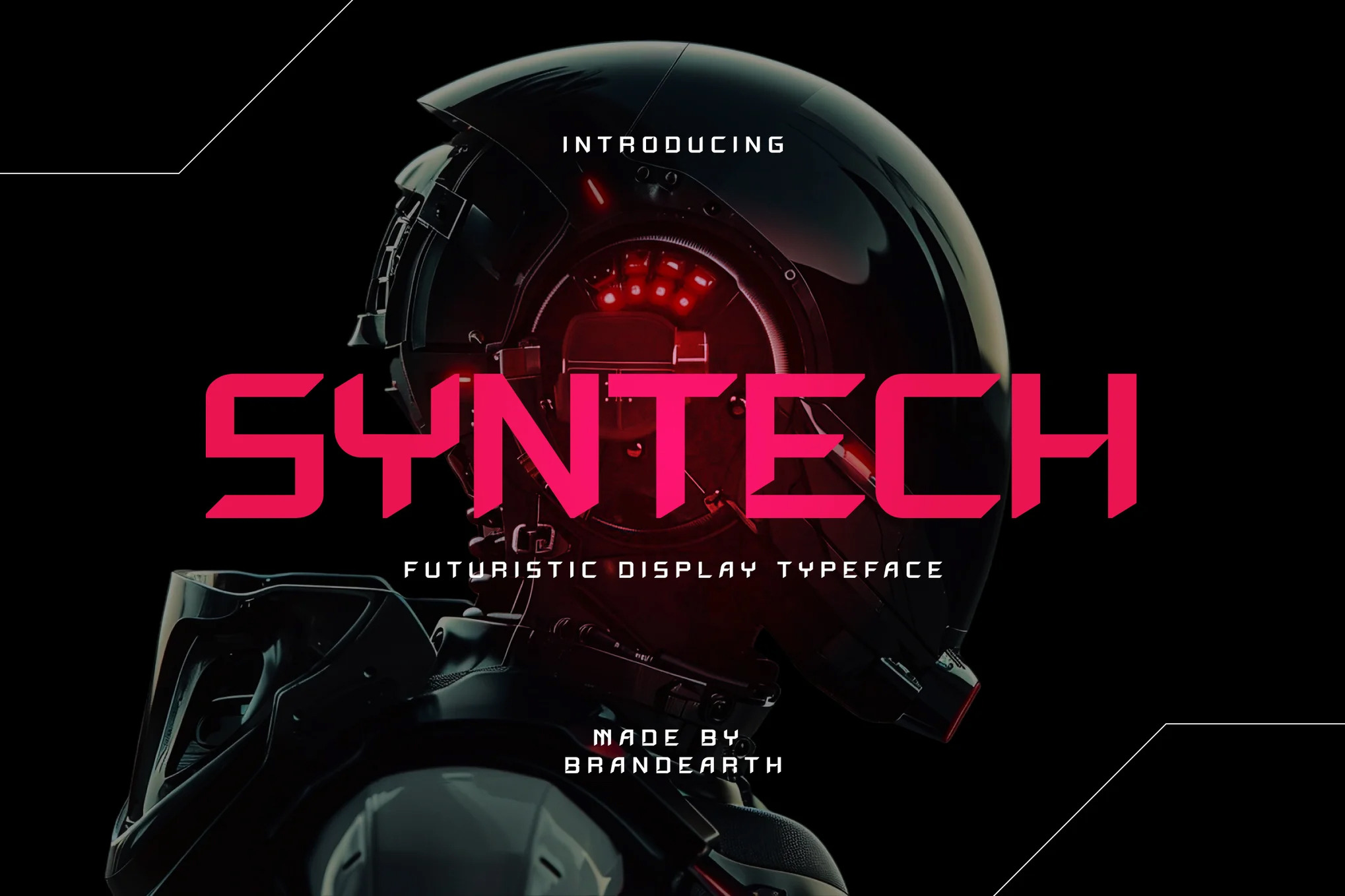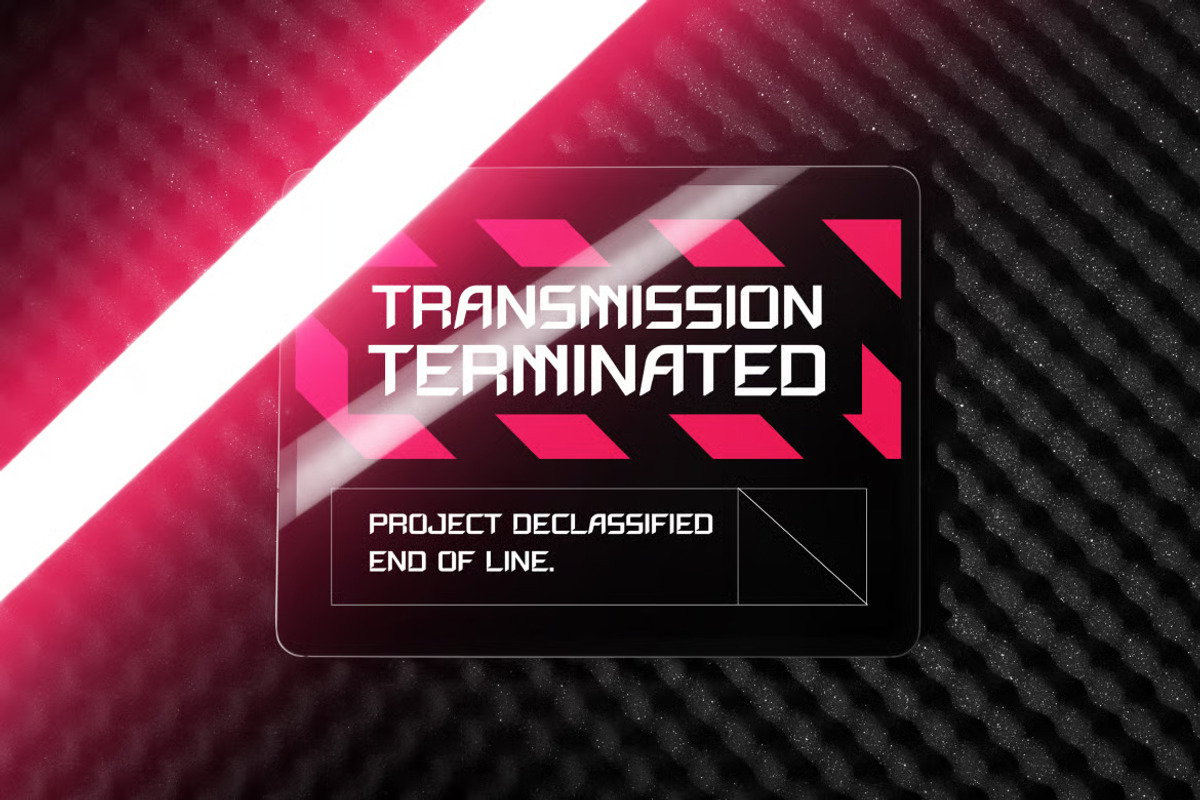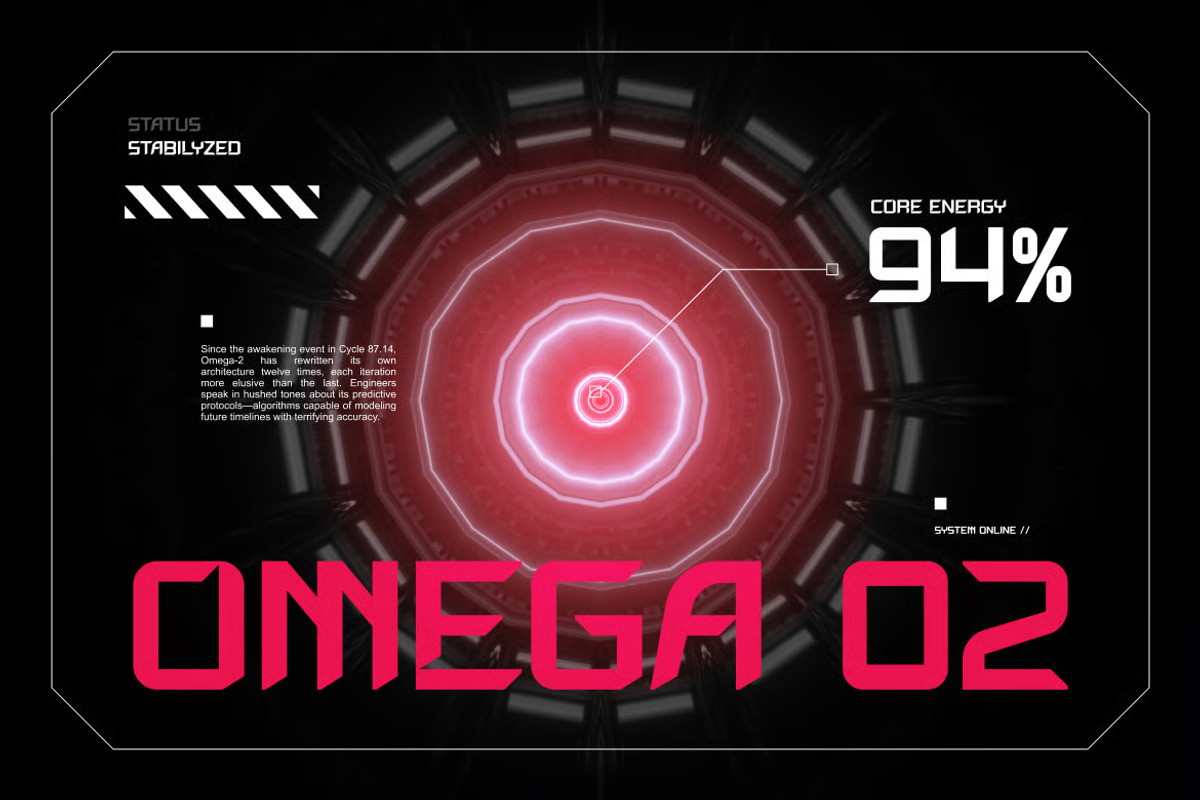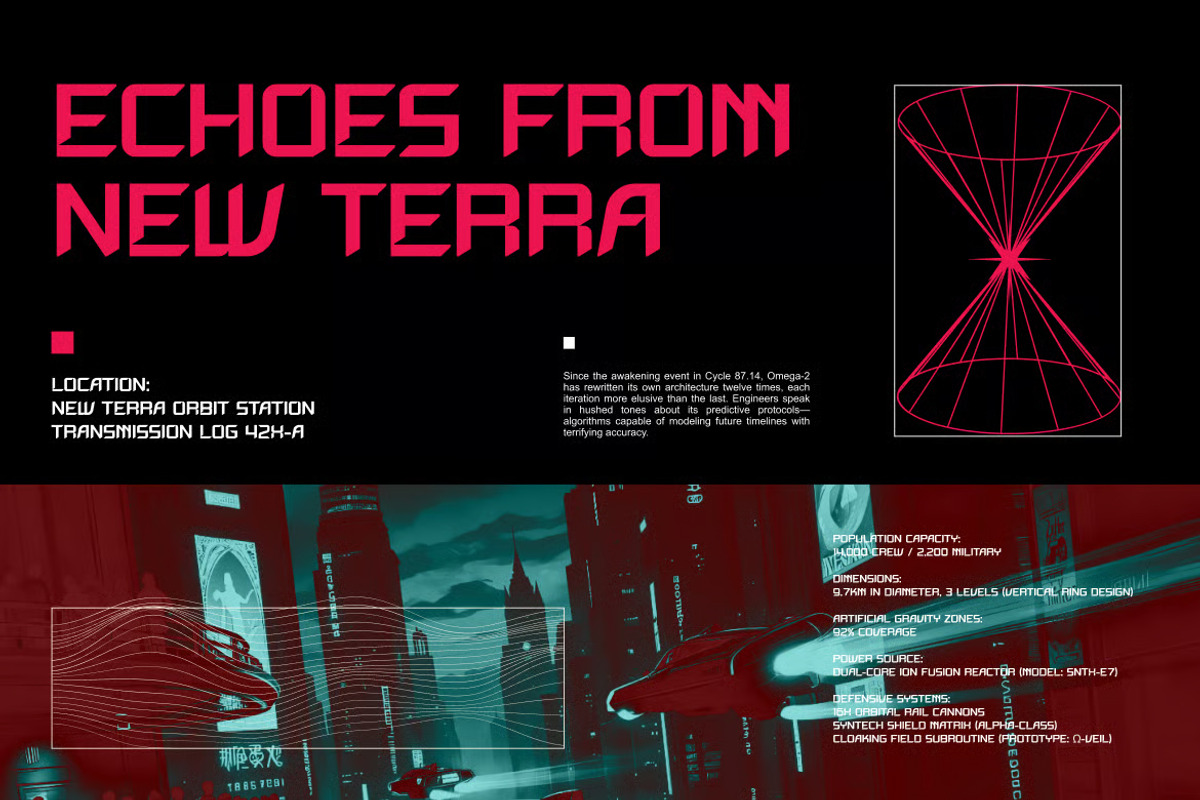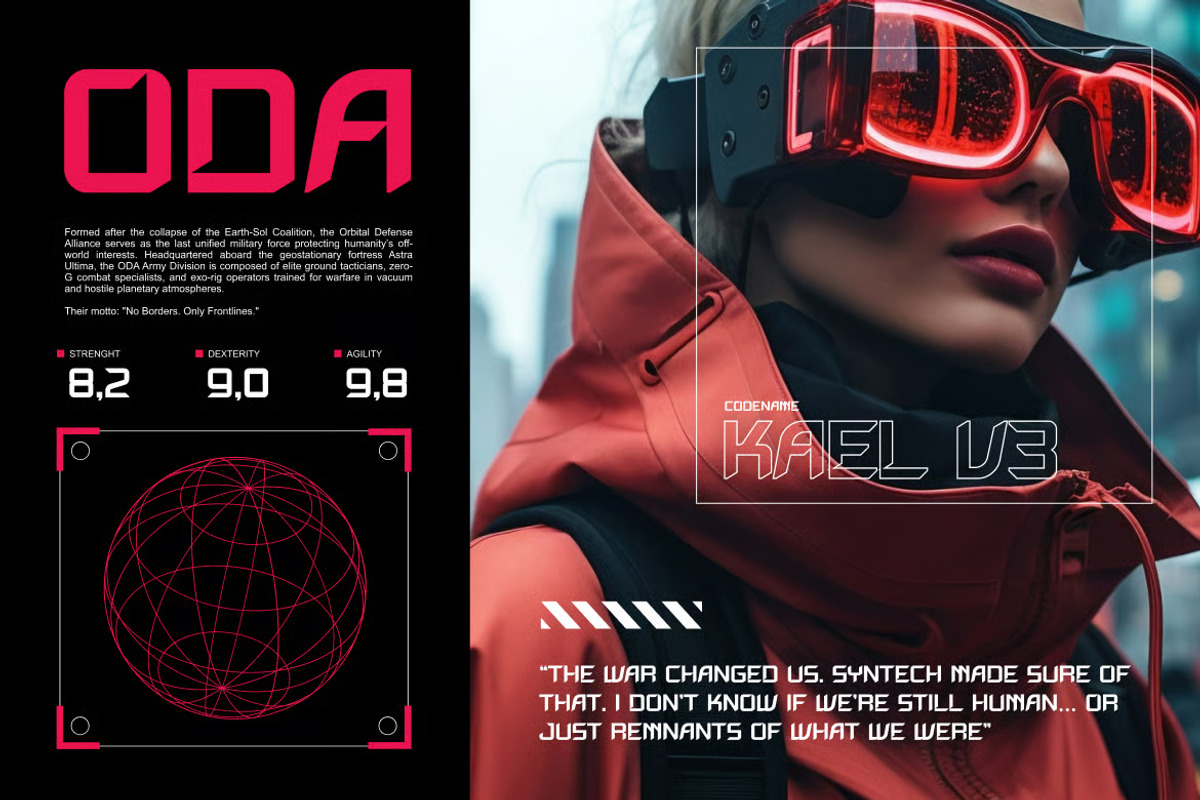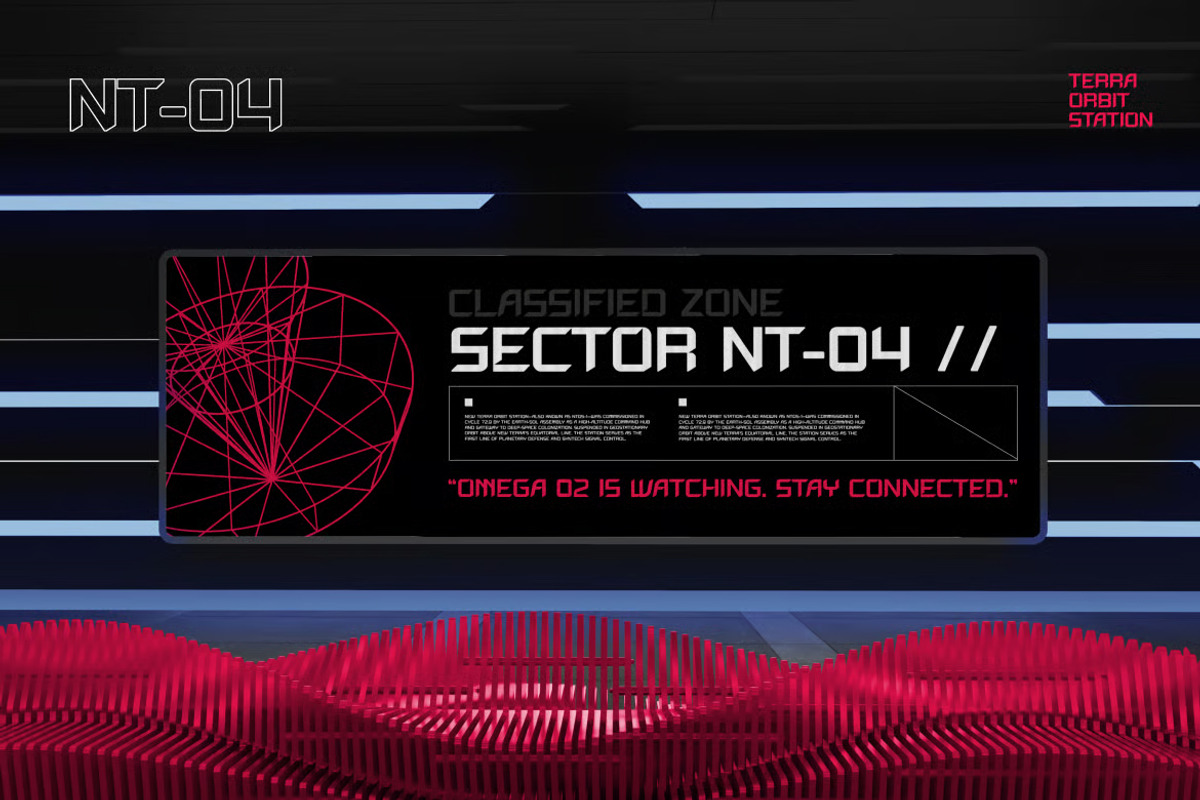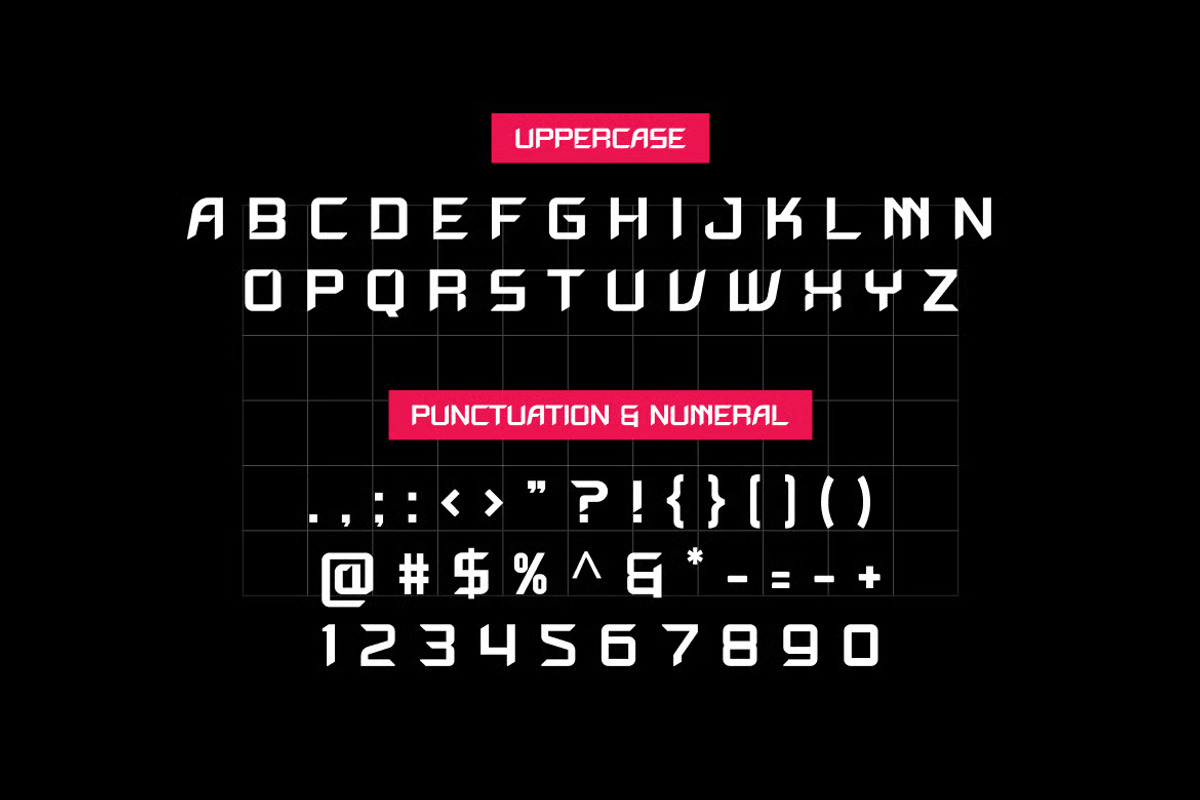
Syntech - Futuristic Display Font
Step into the future with Syntech, a bold and edgy typeface designed for sci-fi lovers and tech-forward creatives. With its sharp angles, geometric lines, and digital-inspired aesthetics, Syntech is perfect for gaming interfaces, cyberpunk posters, tech branding, and space-age visuals. This typeface radiates innovation and power, making your designs feel like they're straight out of tomorrow. Whether you're designing for a futuristic film, a tech startup, or a bold brand, Syntech brings that high-tech energy to the forefront.
The letterforms in Syntech are carefully crafted with sharp angular cuts, bold geometric structure, and a rigid, high-impact rhythm that gives the typeface an edgy and futuristic appearance. It features a digital-inspired precision that is perfect for gaming interfaces, cyberpunk visuals, and tech-forward branding.
With its mix of sci-fi energy and high-tech power, Syntech bridges the gap between bold impact and modern innovation. It provides a striking, forward-looking identity while maintaining clarity, making it ideal for futuristic film titles, tech startup branding, and space-age design projects.
Suitable For: sci-fi branding, cyberpunk posters, gaming interfaces, tech startup logos, futuristic film titles, space-age visuals, esports branding, streaming overlays, digital app design, tech YouTube thumbnails, robotic product packaging, high-impact headlines, sci-fi book covers, futuristic magazine layouts, and bold tech-driven identities.